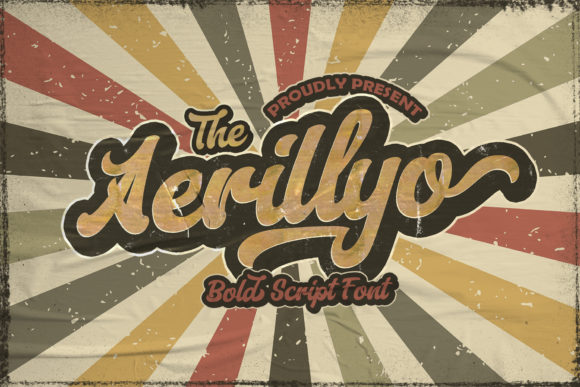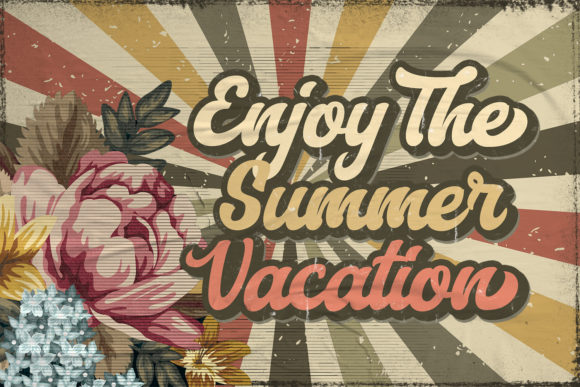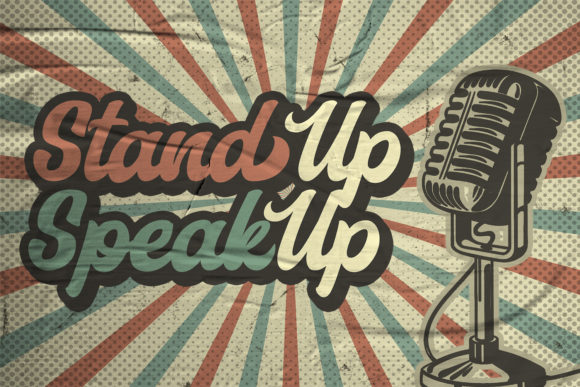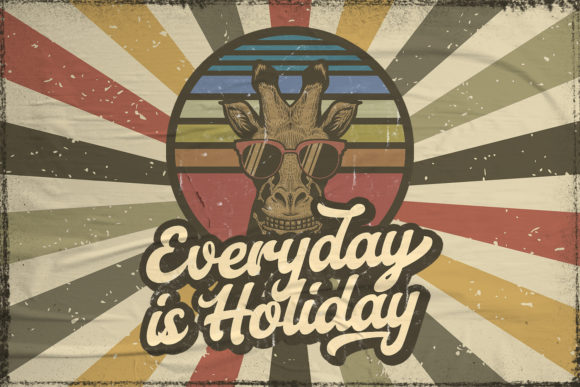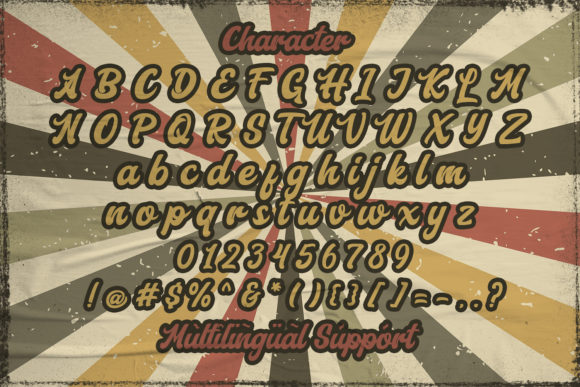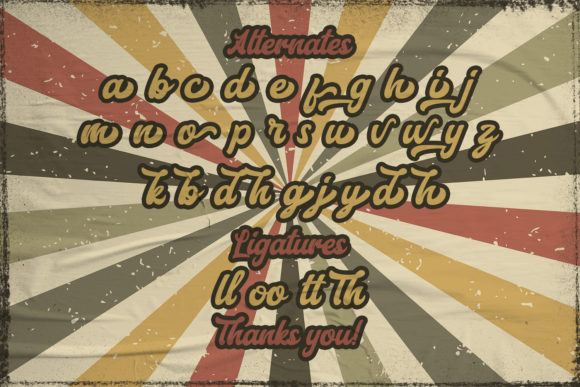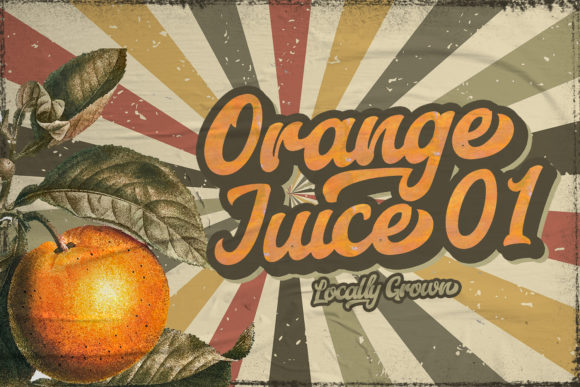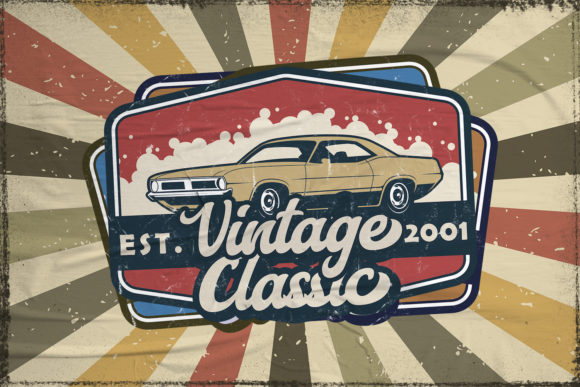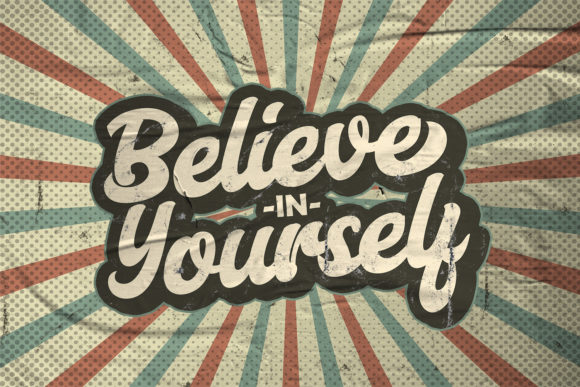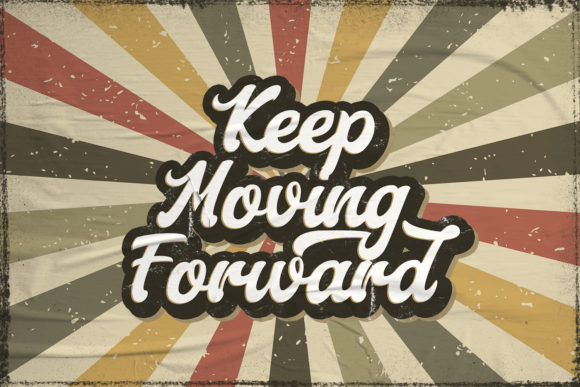
Aerillyo Font
About Aerillyo Font
Aerillyo is a cute and bold script font. It’s curved and rounded in every single touch, and has a vintage and retro style that makes it perfect for branding, stationery, quotes and much more!